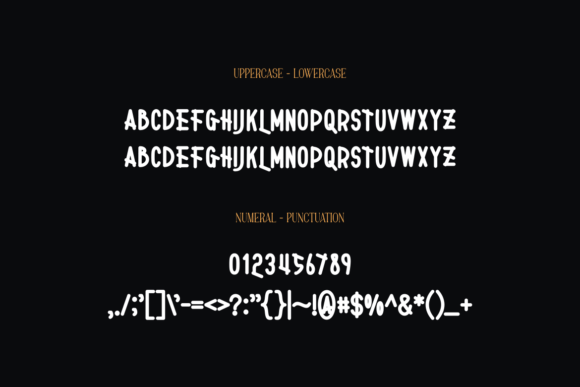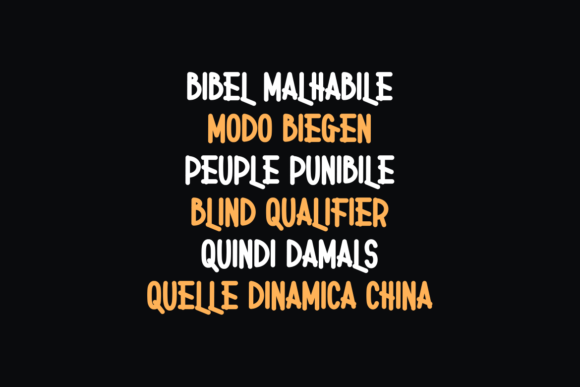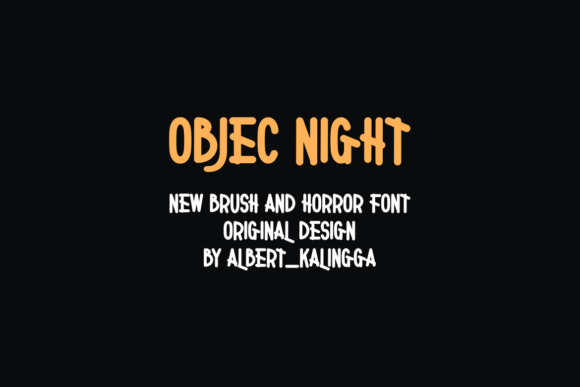
Introduction to Objec Night Font
That’s why we’re excited to introduce our new product, the Objec Night Font – a bold and authentic display font that’s about to revolutionize the way you approach your next creative project. With its high-quality design and versatility, Objec Night Font is the perfect addition to any branding project, logo, or esport design.
Key Features of Objec Night Font
- High-quality design resource for creative projects: Objec Night Font is a unique and stylish font perfect for designers looking for a sophisticated and elegant look.
- Unique characteristics: Objec Night Font features a distinctive blend of modern and vintage elements, making it perfect for designers who want to add a touch of sophistication to their creative projects.
- Perfect for design projects: Whether you’re working on a logo, brochure, or website, Objec Night Font is an excellent choice due to its high-quality design and versatility.
Honest Review: Objec Night Font
I recently stumbled upon the Objec Night Font, and I must say, it’s a great addition to any design resource collection. With its high quality and unique design, it’s perfect for creative projects that require a touch of elegance.
- High quality design
- Perfect for creative projects
However, I do have to mention that the Objec Night Font may not be suitable for all types of projects. The design is quite bold and may not be the best choice for simple or minimalist designs. ⚠️
Overall, I’m impressed with the Objec Night Font, and I would definitely recommend it to designers looking for a high-quality font for their creative projects.
The Objec Night Font is ideal for:
Designing posters and flyers
Creating social media graphics
Developing branding materials